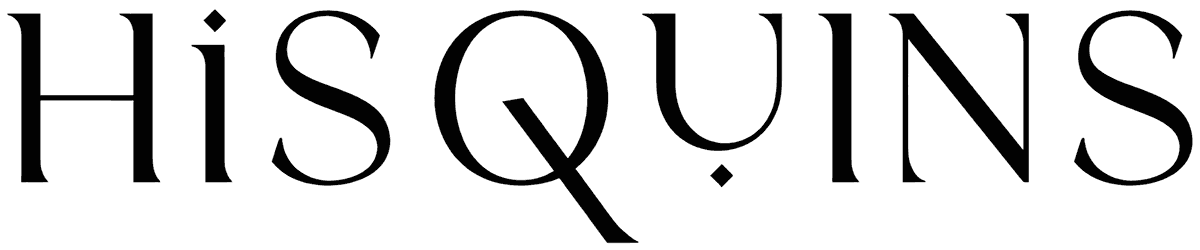
Hisquins Font
Hisquins is a stunning modern font that shines in front of the viewer’s eye. This serif font grabs your attention at first glimpse and seems entertaining.
You may use the Hisquins font for various purposes, such as magazine covers, logos, and brochures; however, it does not support lowercase letters and numbers. This luxury font has an elegant design, sending a pleasant vibe to your audience. So give it a try to impress your audience.